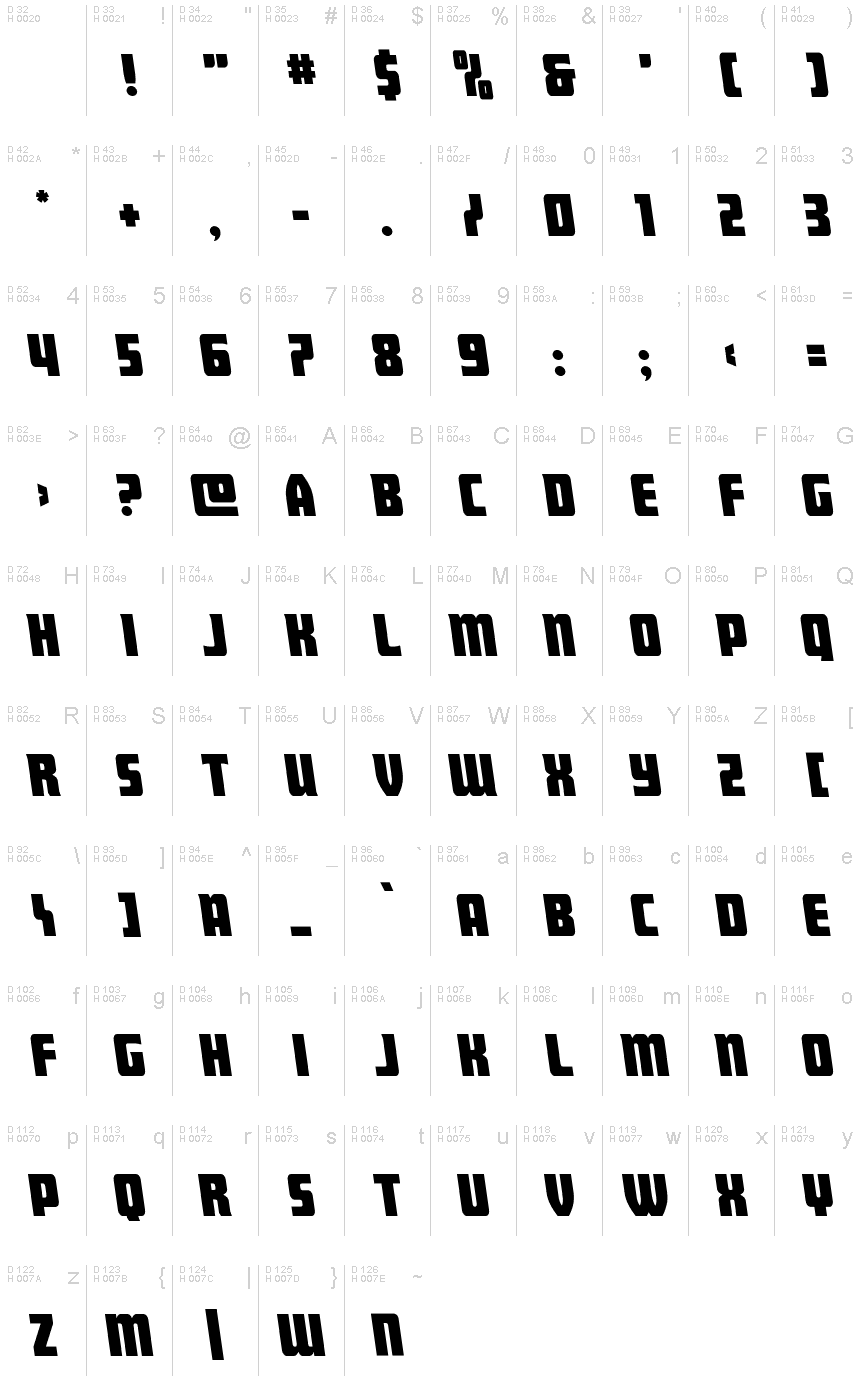
Intrepid Spear Leftalic
Intrepid Spear Leftalic, from the Intrepid Spear font family designed by Iconian Fonts, stands out as a bold statement in the realm of display typefaces. With its techno style and extra-condensed width, this font exudes a modern edge that is both assertive and forward-leaning—much like the metaphorical spear it represents.
The striking aesthetic of Intrepid Spear Leftalic is characterized by its robust bold weight which ensures high visibility and instant impact. The choice of an italicized stance adds dynamism to any text, making it ideal for creative projects that demand attention-grabbing headlines or need to convey a sense of urgency and movement.
This font's unique appearance makes it well-suited for various design applications ranging from futuristic branding initiatives to eye-catching promotional materials. Additionally, with two sub-families—Regular and Lower Case—Intrepid Spear offers versatility allowing designers to play with different levels of intensity within their creations.
Intrepid Spear Leftalic is not just a typeface but a declaration of bold intent, perfect for designers looking to inject a dose of high-energy typography into their work.
The striking aesthetic of Intrepid Spear Leftalic is characterized by its robust bold weight which ensures high visibility and instant impact. The choice of an italicized stance adds dynamism to any text, making it ideal for creative projects that demand attention-grabbing headlines or need to convey a sense of urgency and movement.
This font's unique appearance makes it well-suited for various design applications ranging from futuristic branding initiatives to eye-catching promotional materials. Additionally, with two sub-families—Regular and Lower Case—Intrepid Spear offers versatility allowing designers to play with different levels of intensity within their creations.
Intrepid Spear Leftalic is not just a typeface but a declaration of bold intent, perfect for designers looking to inject a dose of high-energy typography into their work.